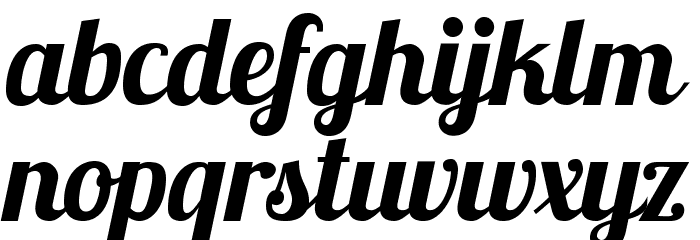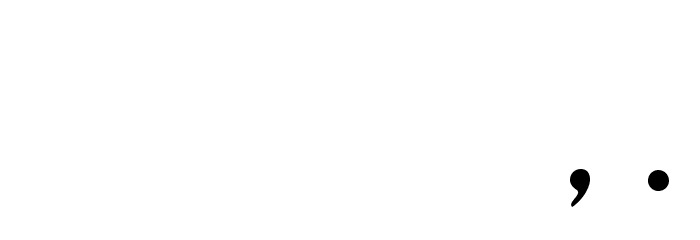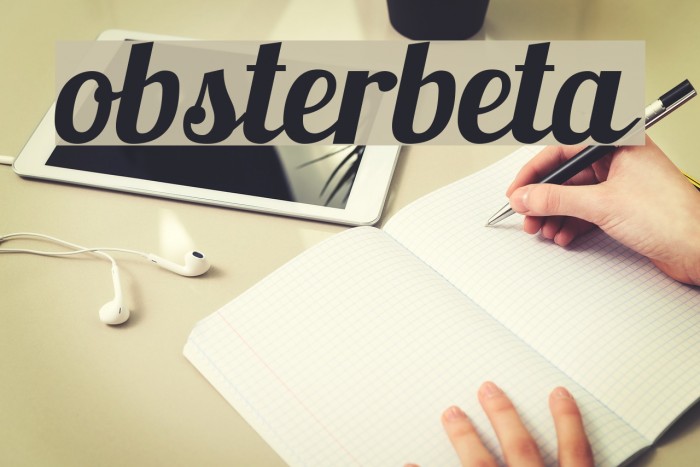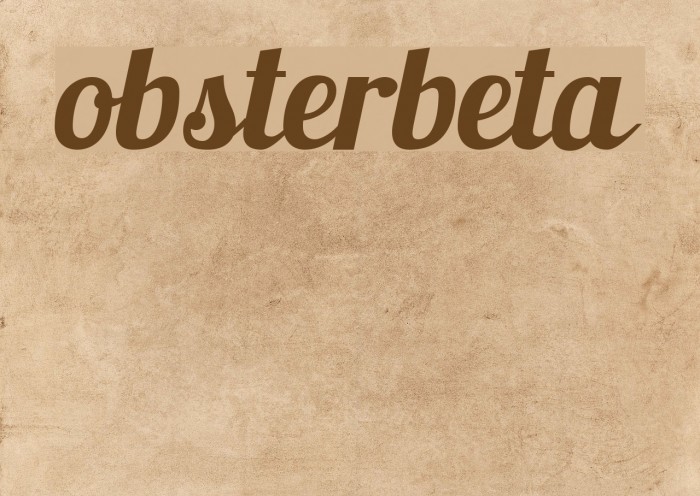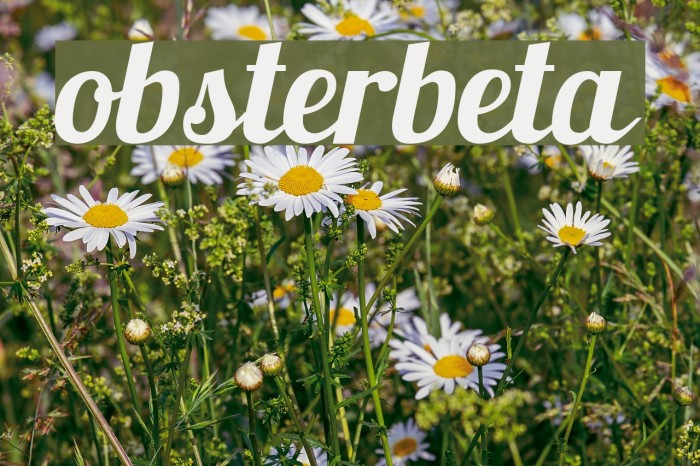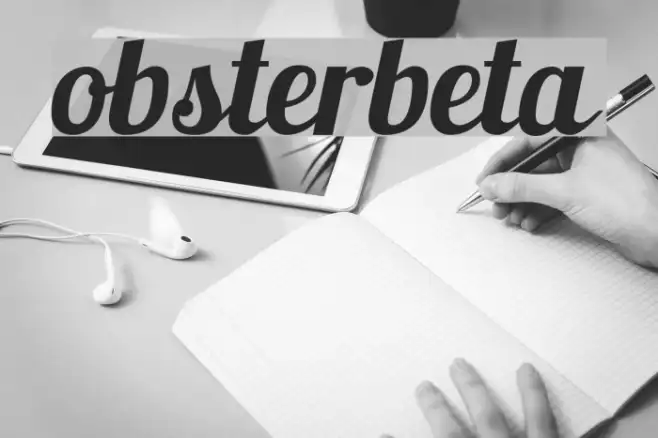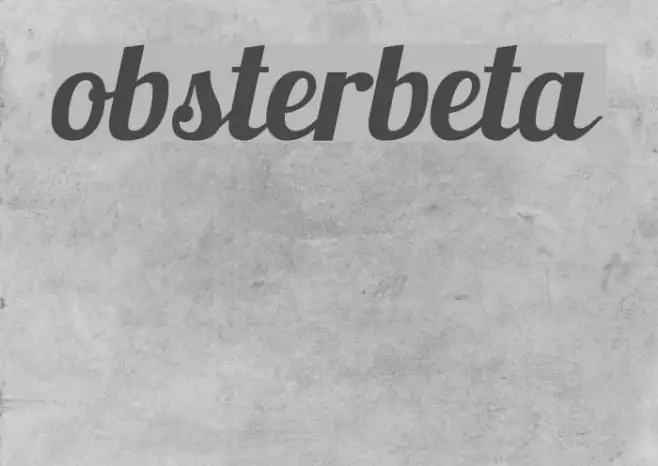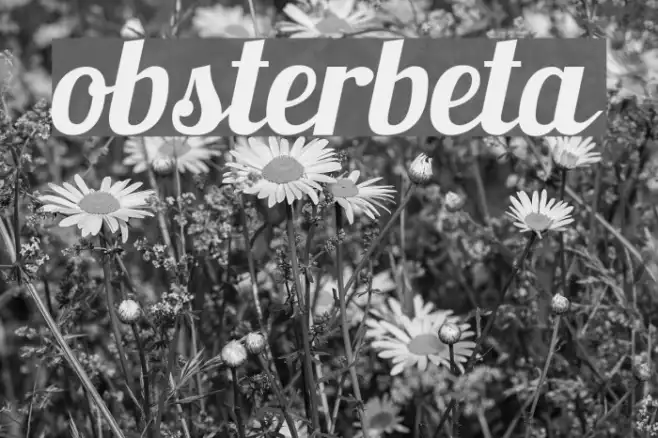
Lobsterbeta6 Font
This font features a bold and flowing script style, characterized by its elegant and smooth curves. The letters are interconnected, creating a seamless and cohesive look. The strokes are thick, providing a strong presence and making it highly legible despite its decorative nature. The font exudes a sense of sophistication and charm, making it suitable for a variety of creative applications. Its playful yet refined appearance is ideal for projects that require a touch of elegance and personality.
A bold, flowing script font with elegant, interconnected letters.
- Proposed Projects: Ideal for wedding invitations, branding, logos, and greeting cards.
- Category: Script
- Character Spacing: Tight
- Use Case: Logos, Invitations, Branding
Glyphs , . a b c d e f g h i j k l m n o p q r s t u v w x y z ı fi fl ffi ffl